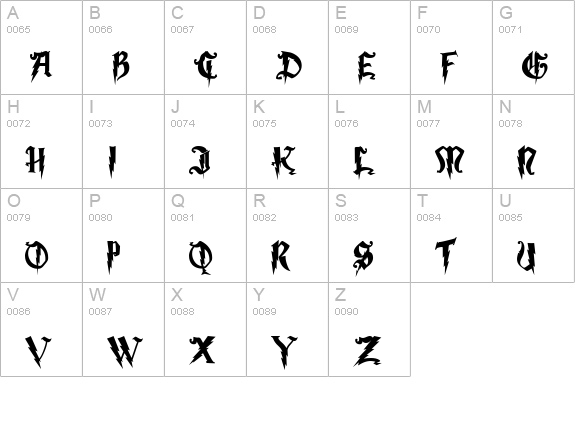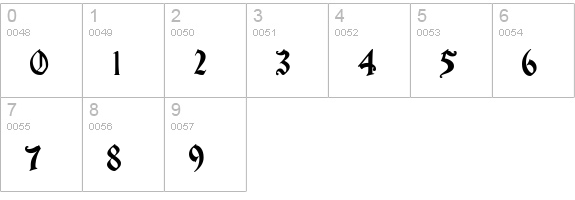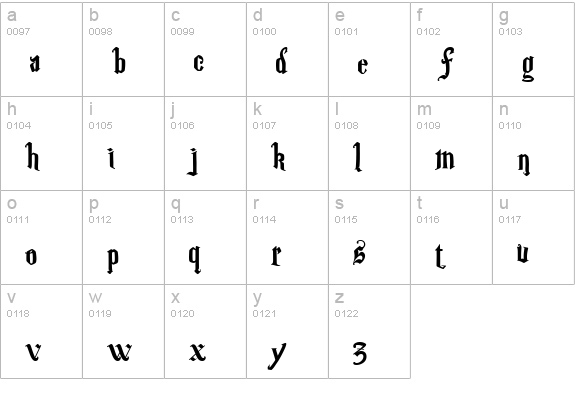
Magic School Two Font Details
Introducing Magic School Two, a whimsical and enchanting font that will transport you to a world of magic and wonder. This delightful typeface captures the essence of a magical school, with its curvaceous letterforms and playful design elements. Magic School Two is the perfect choice for any project that needs a touch of magic and fantasy. Whether you're creating invitations for a children's birthday party, designing a book cover for a spellbinding novel, or adding a mystical touch to your website, this font will bring your creations to life. One of the most amazing aspects of Magic School Two is that it is free! Yes, you read that right. This captivating font is freely available to download at FontsMarket.com. Now you can add a touch of magic to your designs without breaking the bank. With its wide range of characters, Magic School Two offers versatility and flexibility. It includes uppercase and lowercase letters, numerals, punctuation marks, and special characters, allowing you to create captivating and unique designs effortlessly. The smooth curves and intricate details of Magic School Two make it a joy to work with. Whether you're a professional designer or a casual hobbyist, you'll appreciate the attention to detail and the high level of craftsmanship that went into creating this font. Don't miss out on the opportunity to bring a touch of magic to your designs. Download Magic School Two for free at FontsMarket.com and let your creativity soar. Embark on a magical journey and watch as your designs come to life with this spellbinding font.